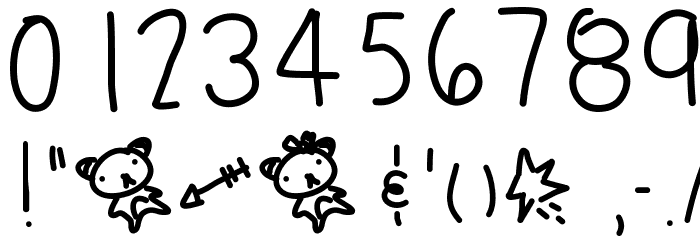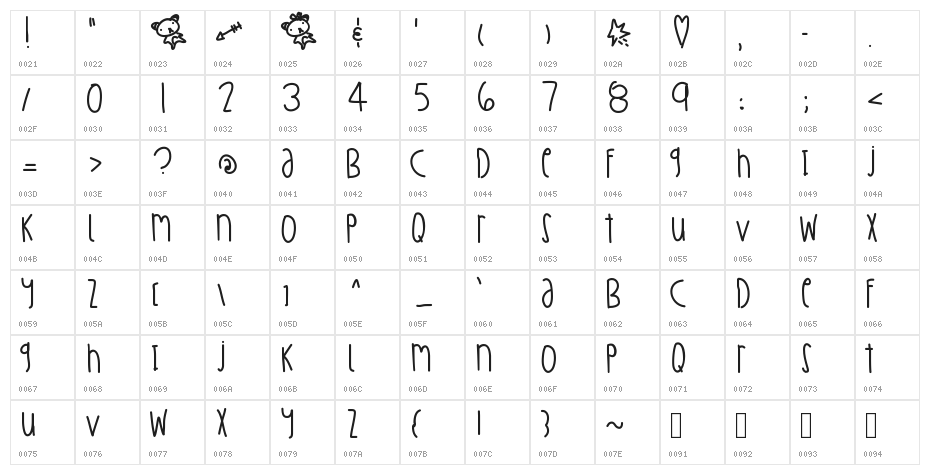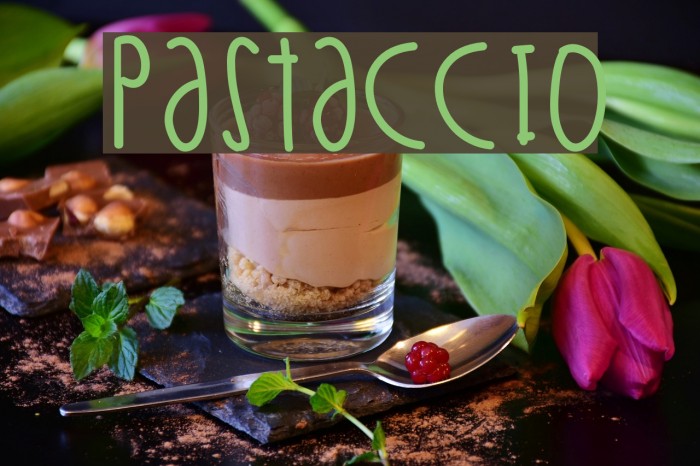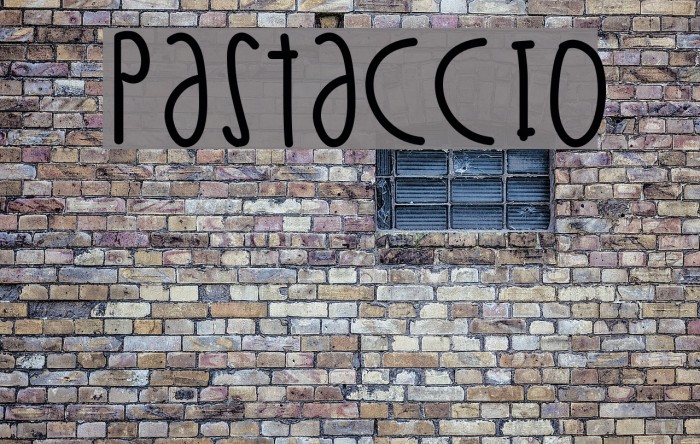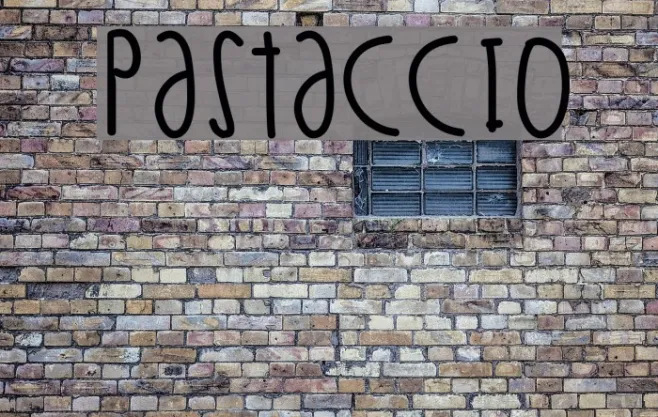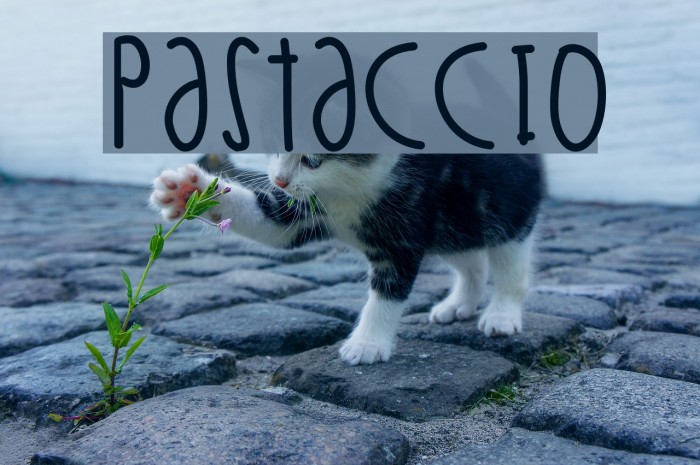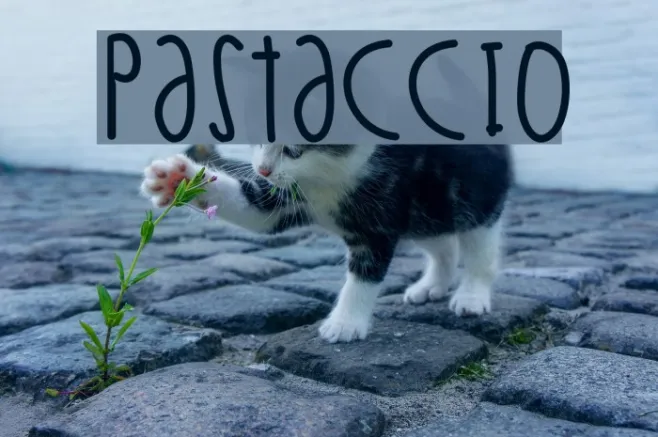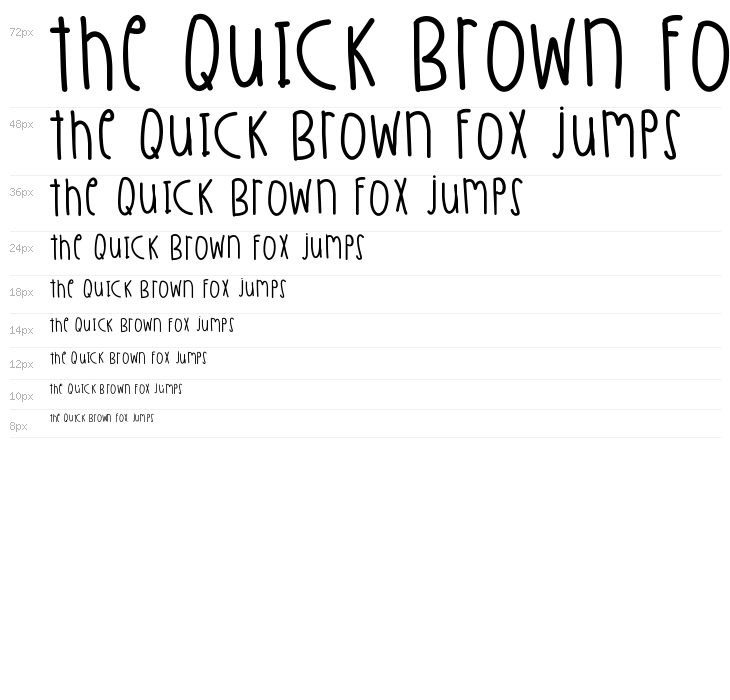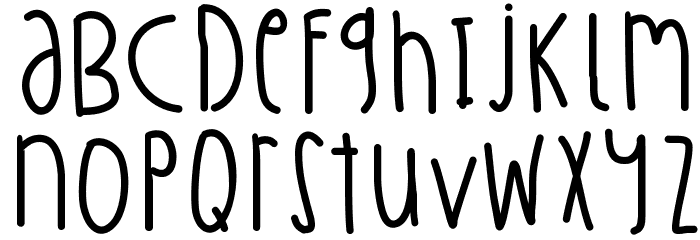
Pastaccio Font
Pastaccio Description
This playful and whimsical font features tall, narrow characters with a hand-drawn aesthetic. The strokes are consistent in width, giving it a uniform appearance, yet the slight irregularities in the lines add a charming, informal touch. The uppercase and lowercase letters maintain a cohesive style, with rounded edges and a slightly elongated form. The numbers are clear and easy to read, matching the overall playful theme. Special characters include unique, illustrative elements that enhance the font's quirky personality. This font is perfect for projects that require a fun and approachable look.